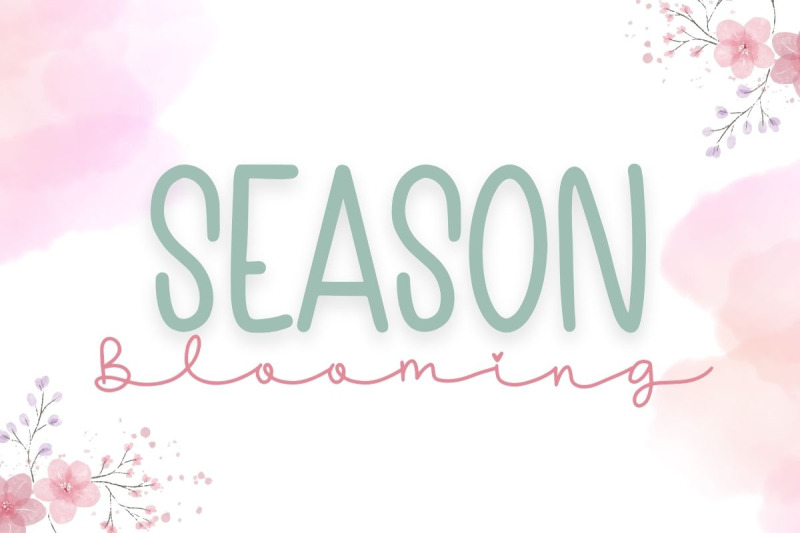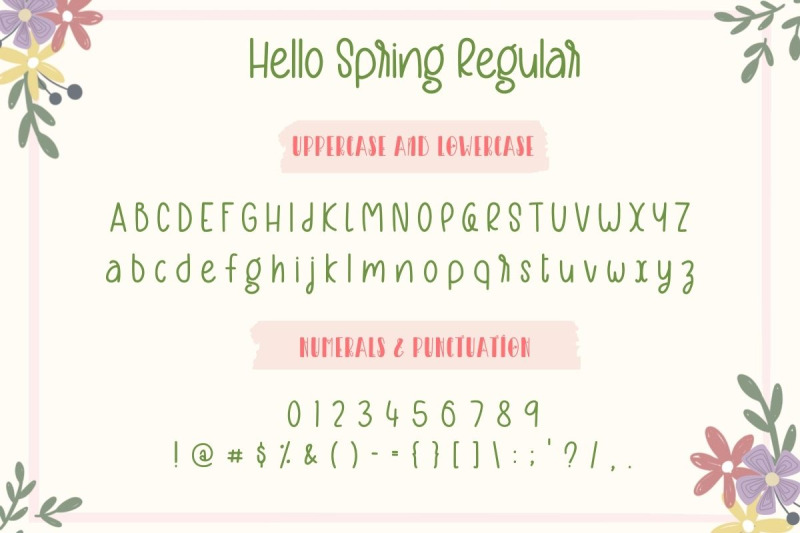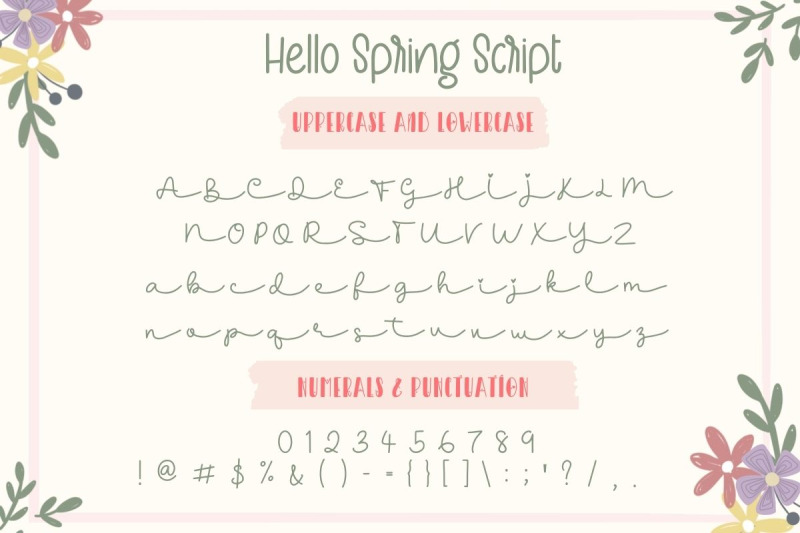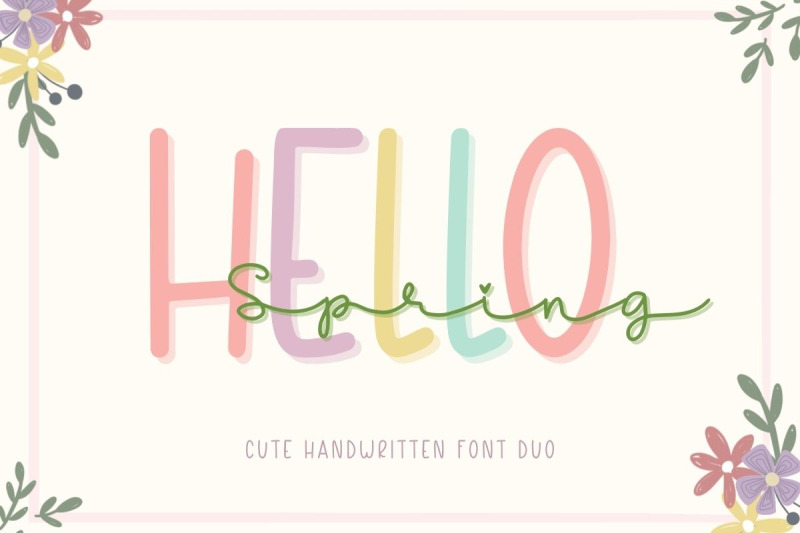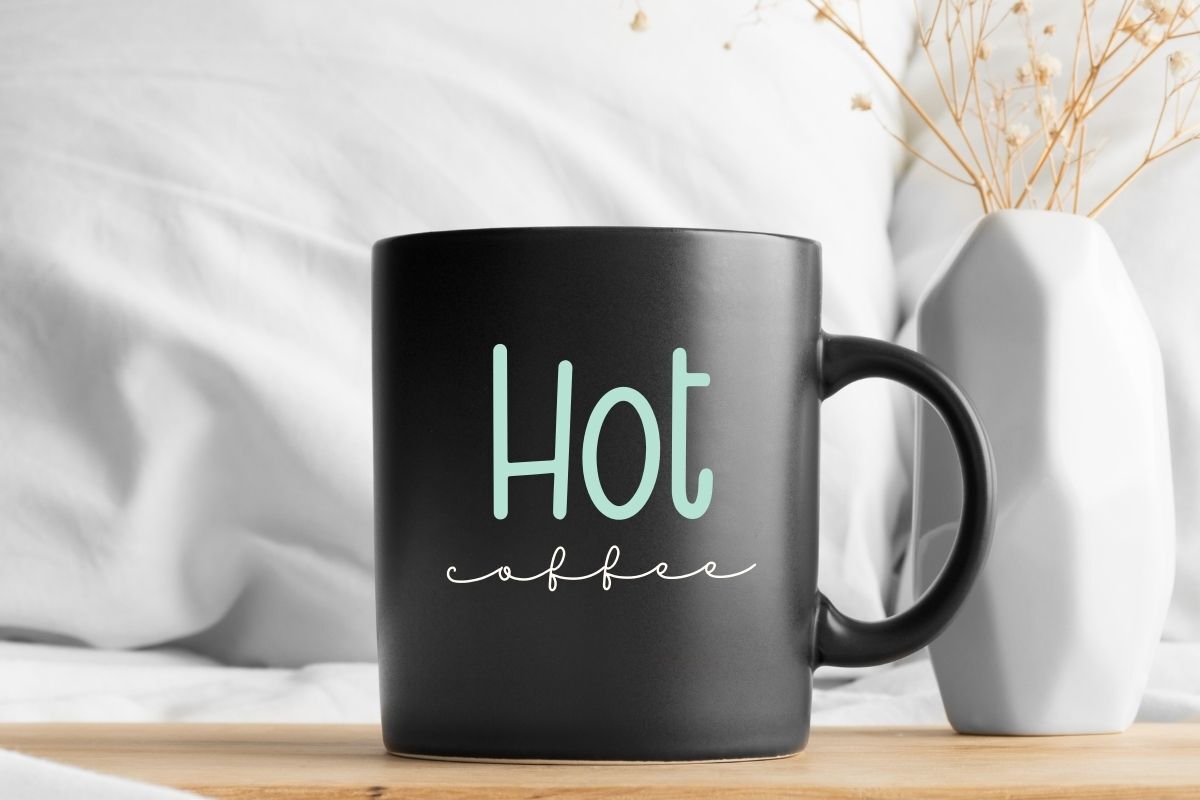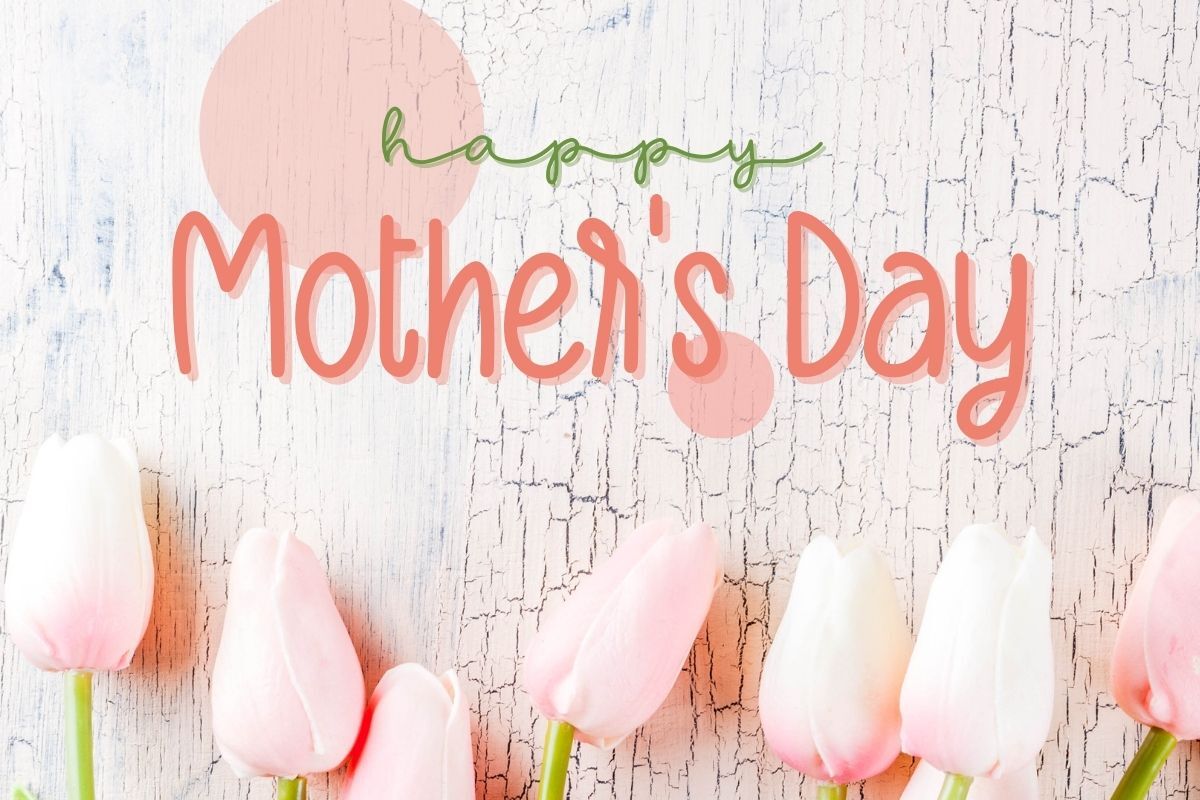
Hello Spring Duo Font
Hello Spring is a cute font duo (sans and script). Masterfully designed to become a true favorite, this font has the potential to bring each of your creative ideas to the highest level! Perfect for creating a wide variety of new designs to match products such as banners, content, mugs, cards, shirts, stationery, social media posts, and more **You will receive 6 Files: 1. -.ttf file 2 files. 2. -.otf file 2 files. 3. -.woff file 2 files. **Please make sure the program/software you are using accepts otf, woff, ttf font files. ❤️ Thank you! ❤️